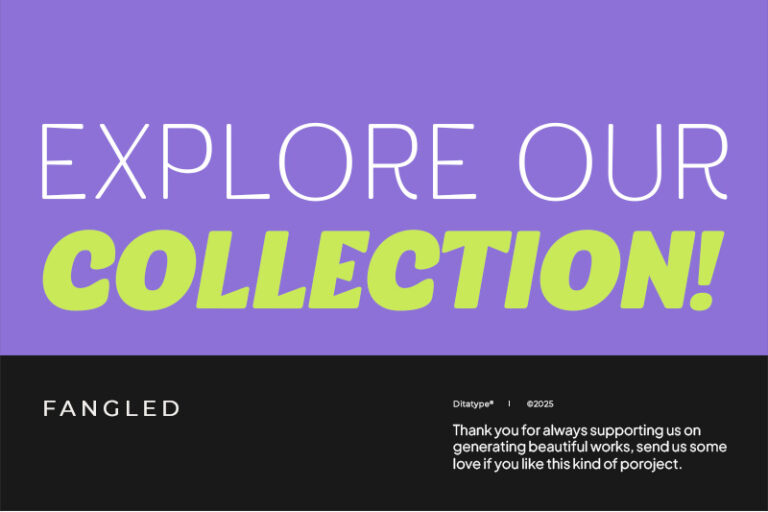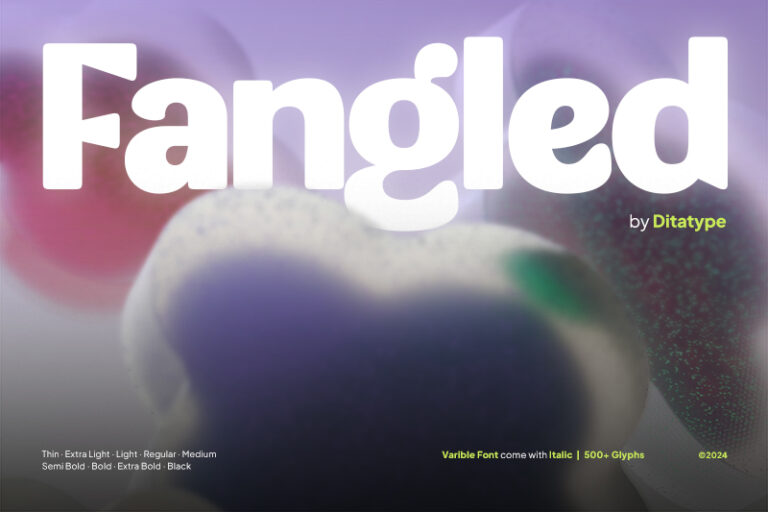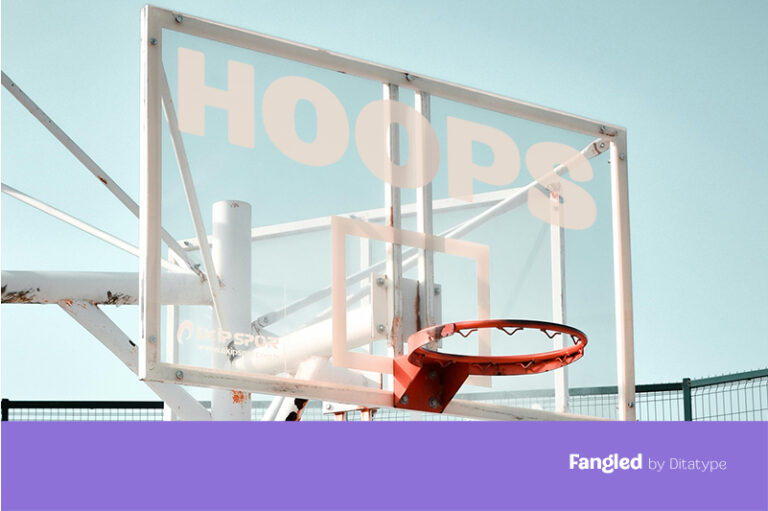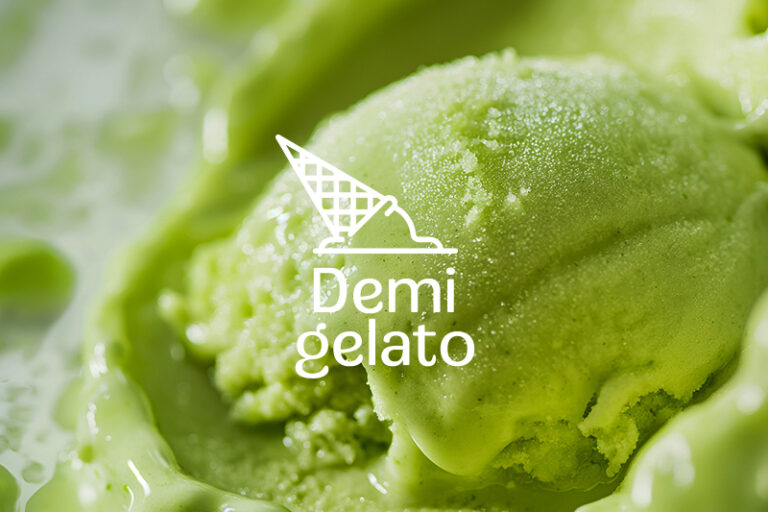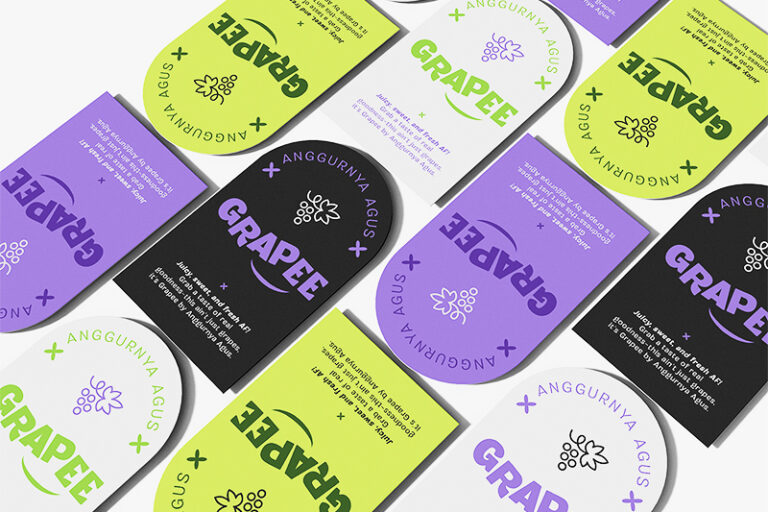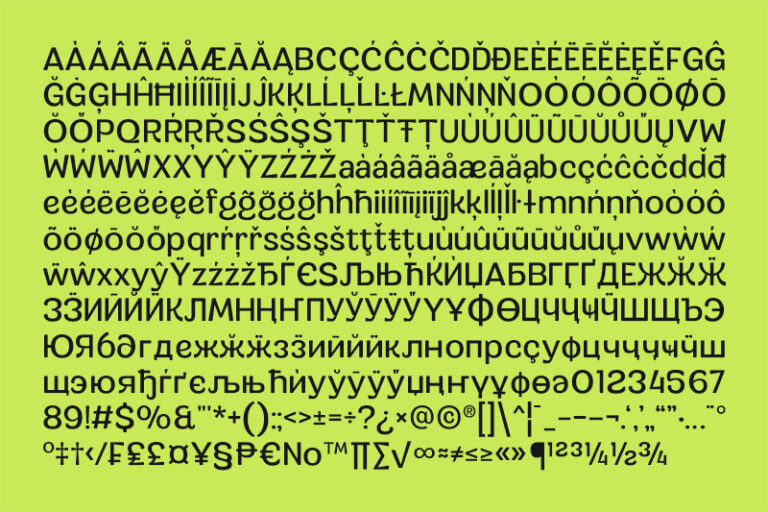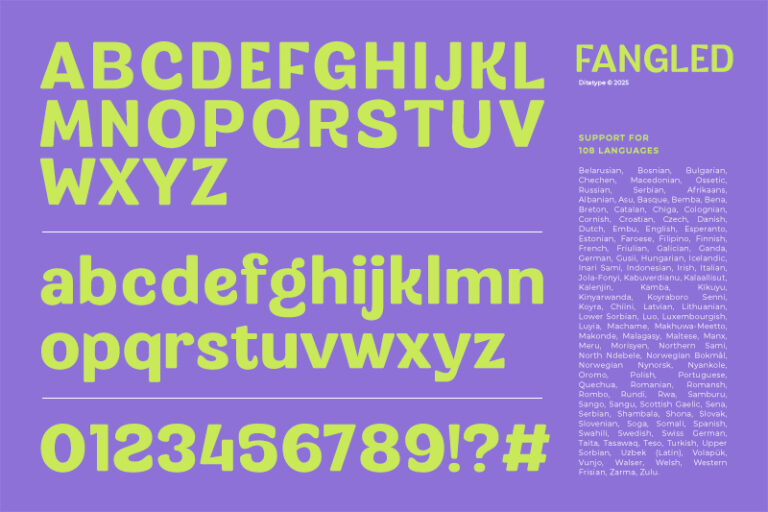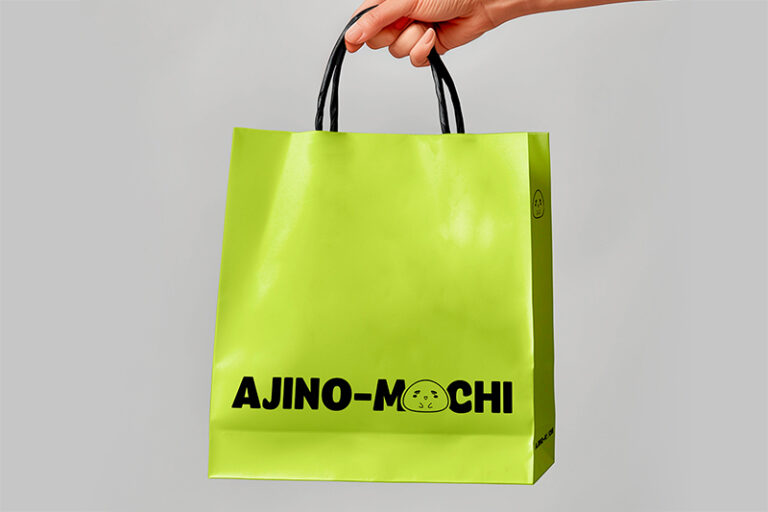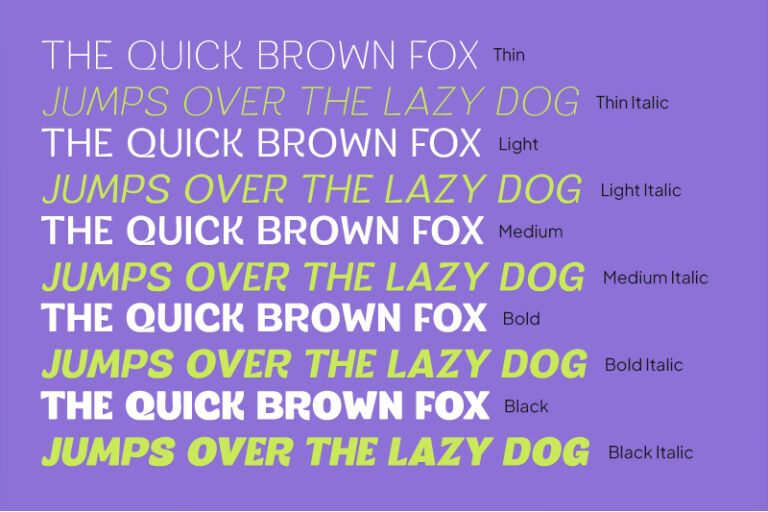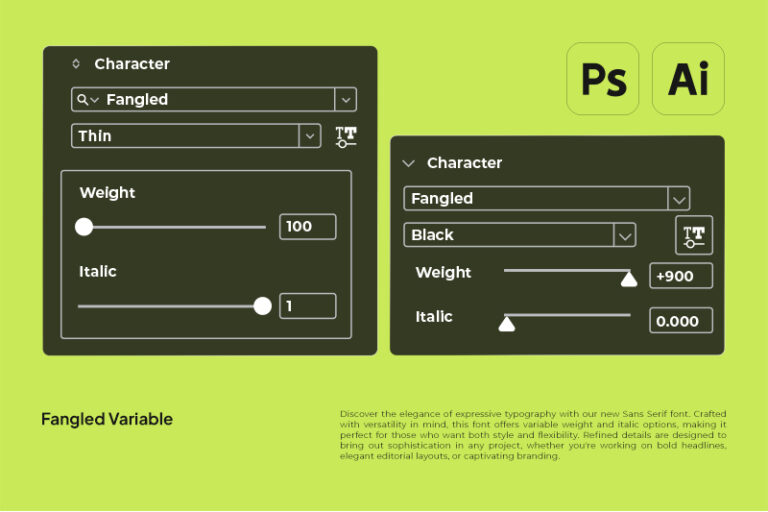
Fangled-Font Family
Fangled is a quirky display sans serif font family full of charm and character. With 9 playful weights, from Thin to Black, plus italic styles and variable font flexibility, Fangled stands out with its adorable shapes and slanted arm strokes that add a fun, dynamic twist. Perfect for bold branding, creative titles, and designs that don’t take themselves too seriously. In addition, enjoy the features here.
Features:
• Multilingual Supports
• Numerals and Punctuations
Fangled fits in logos, branding, packaging, posters, social media posts, and many more designs. Find out more ways to use this font by taking a look at the font preview.